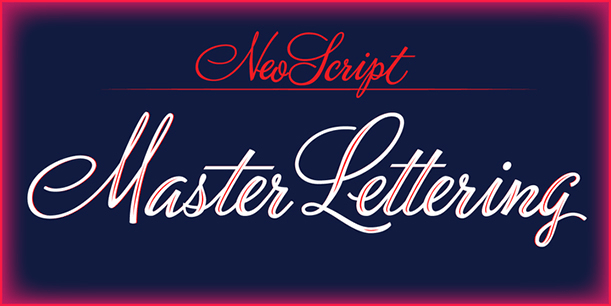
NeoScript Pro
Font Family by John Moore Type Foundry
NeoScript Pro is a family of typefaces based in a commercial script style writing similar to those used in ads advertising the decades 40 and 50, with fine lettering combinations of that time, NeoScript Pro is ideal for composing headlines and subheads and this is supplied four variations.